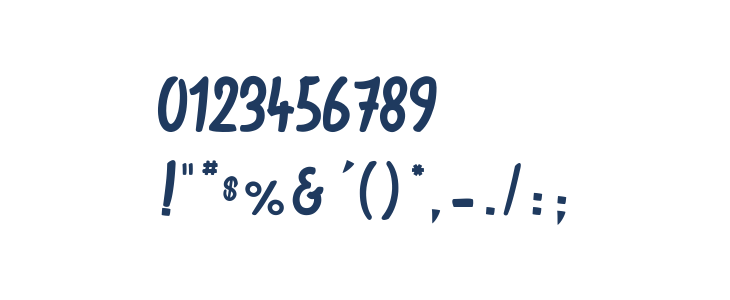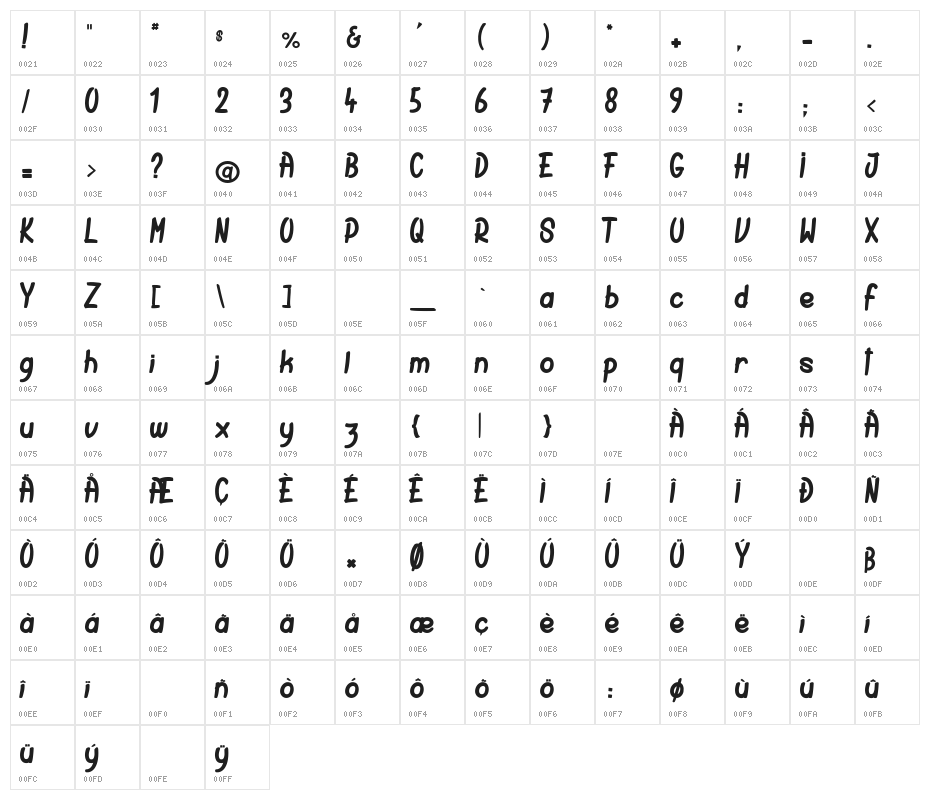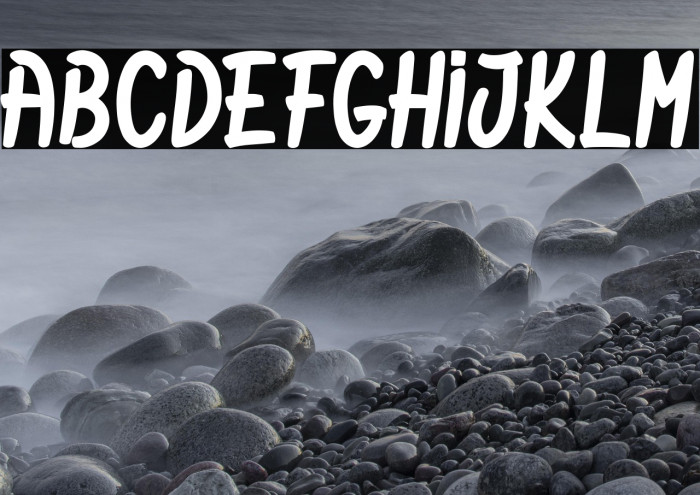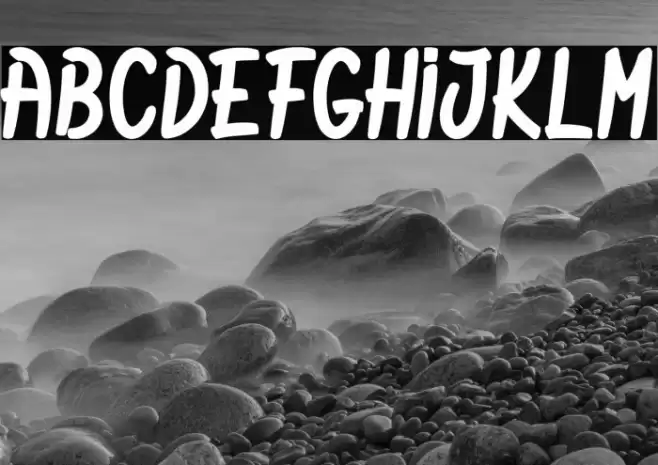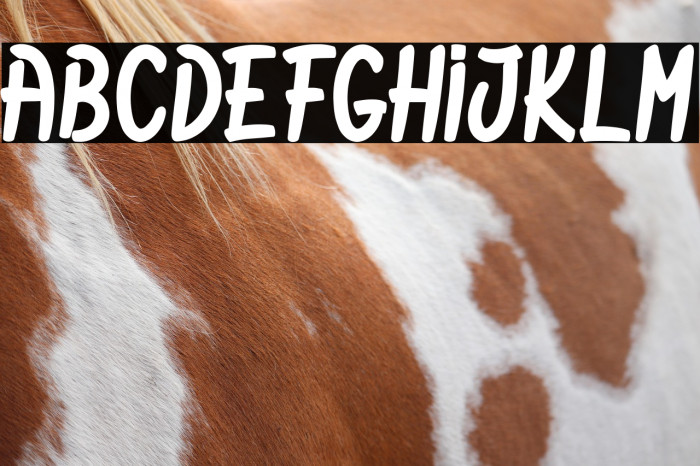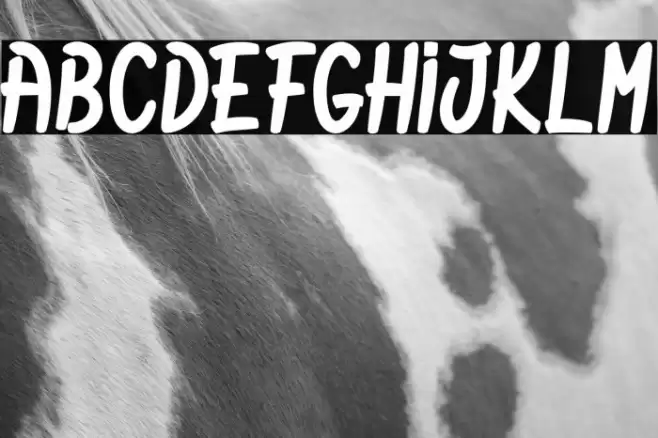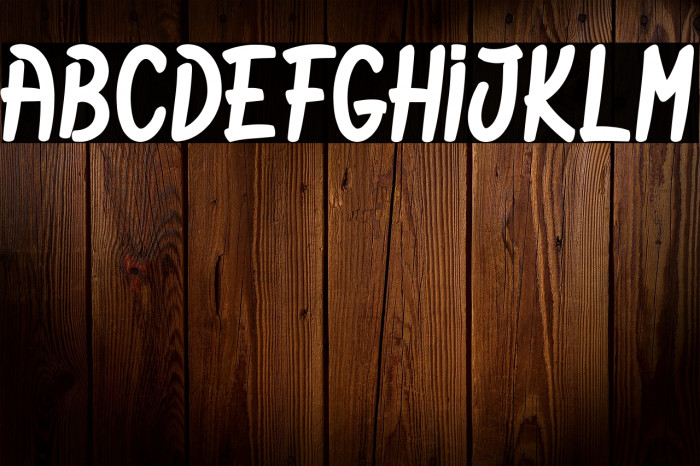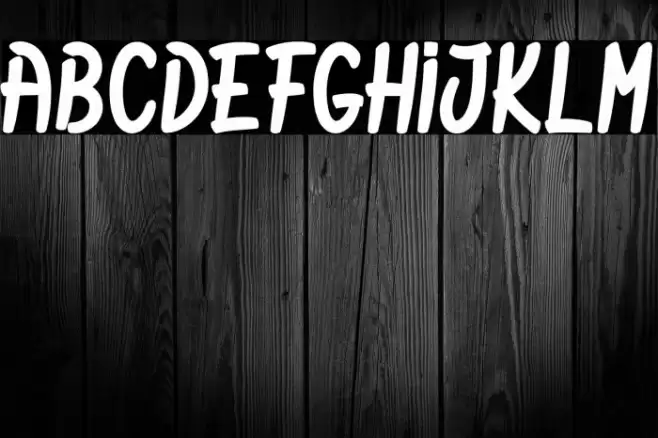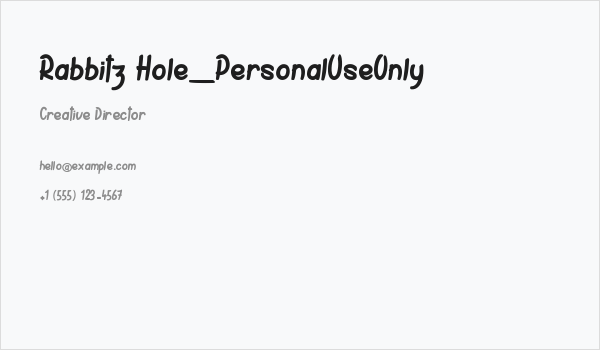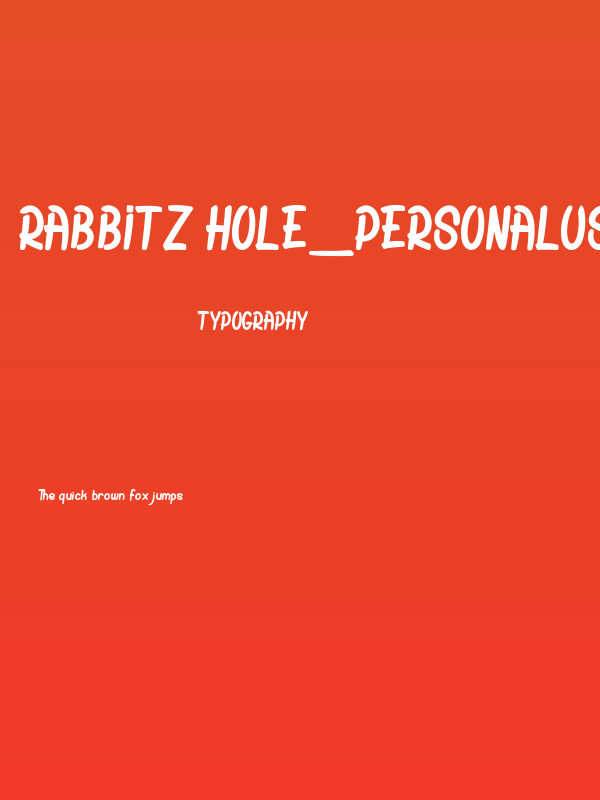
Rabbitz Hole_PersonalUseOnly Font
Rabbitz Hole_PersonalUseOnly Description
This font features a playful and bold handwritten style, characterized by its thick strokes and slightly irregular shapes. The uppercase letters are tall and rounded, giving a friendly and approachable feel. The lowercase letters maintain a consistent style with a slight slant, adding to the casual and informal appearance. The numbers are bold and easy to read, matching the overall aesthetic. Special characters are creatively designed, maintaining the playful theme. This font is ideal for projects that require a fun and engaging look, such as children's books, posters, or informal branding.
| Overall Style | Playful, Casual |
| Proposed Projects | Ideal for children's books, playful posters, informal branding, and creative invitations. |